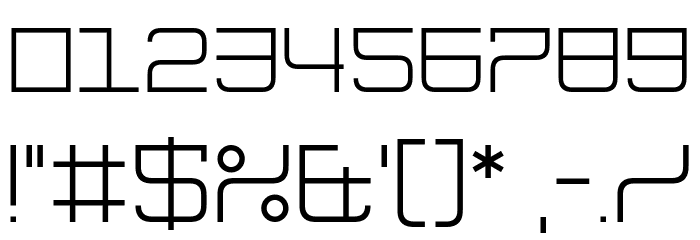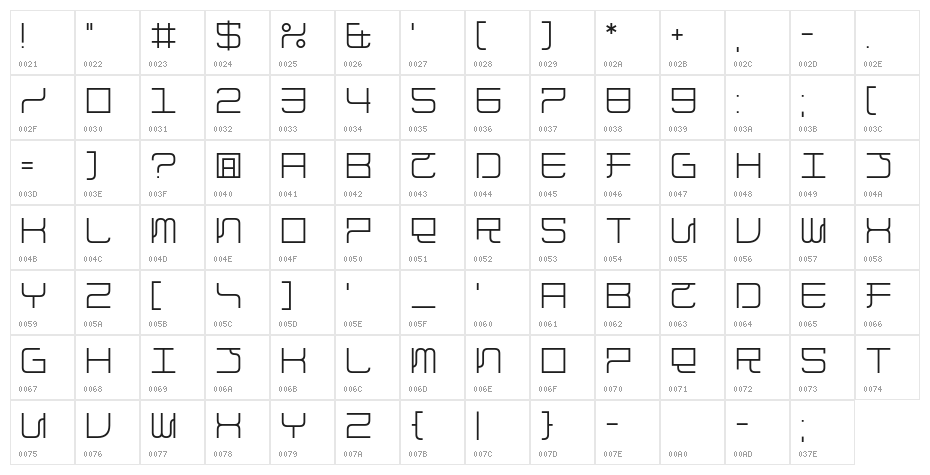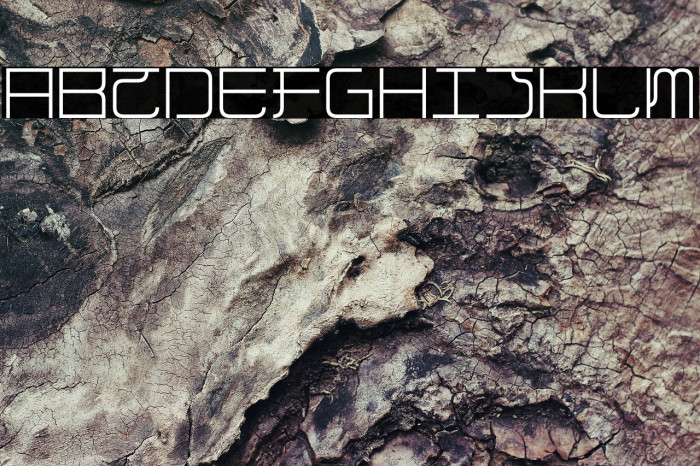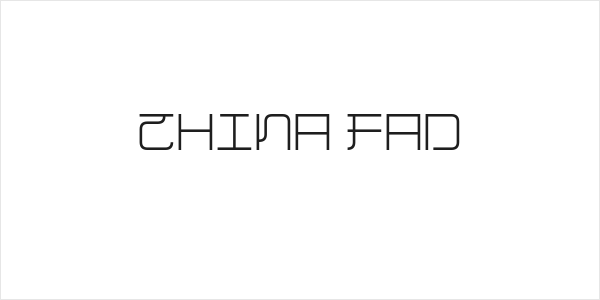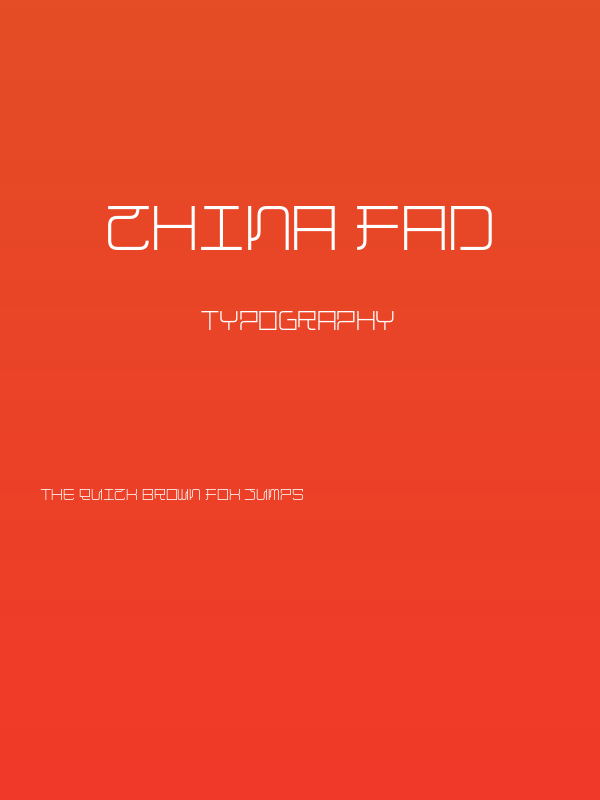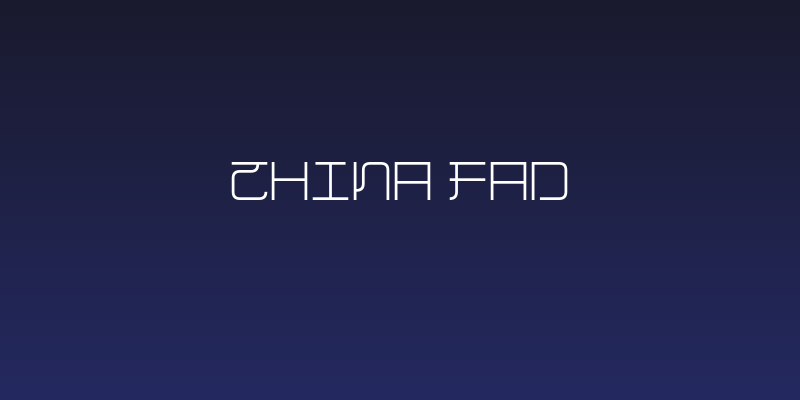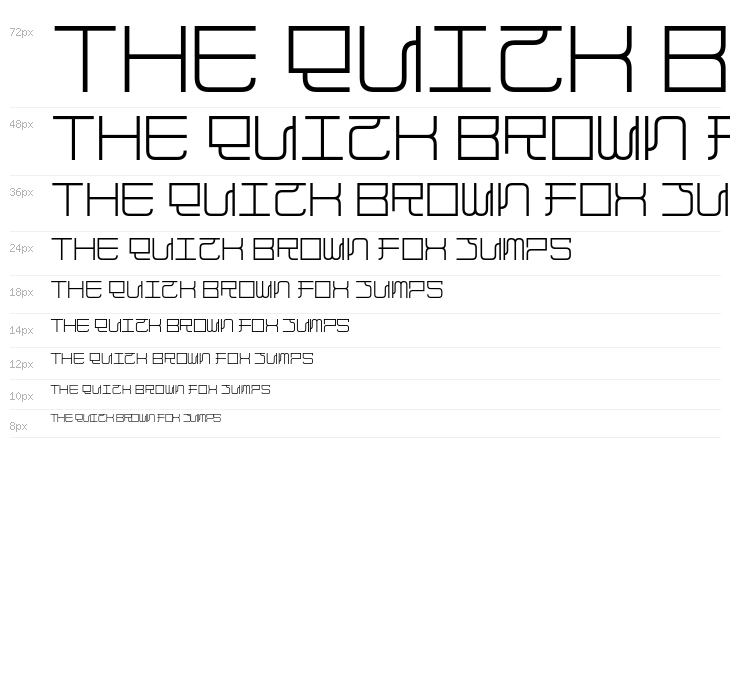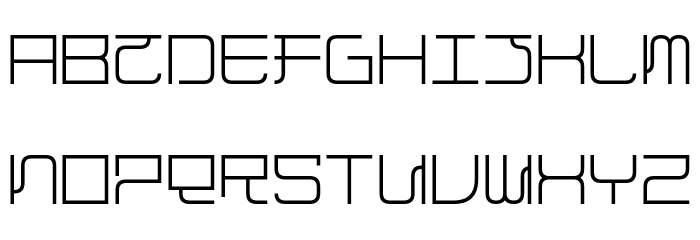
China Fad Font
China Fad Description
This font features a modern, geometric design with a distinct futuristic aesthetic. The characters are composed of clean, straight lines and rounded corners, giving them a sleek and minimalistic appearance. The uppercase and lowercase letters maintain a consistent height, creating a uniform look across the typeface. The numerals and special characters follow the same design principles, ensuring a cohesive style throughout. The font's unique structure makes it stand out, with an emphasis on symmetry and balance. Its thin strokes and open forms contribute to a sense of elegance and sophistication, making it suitable for contemporary design projects.
| Overall Style | Futuristic, Minimalistic |
| Use Case | Logos, Headlines, Digital Interfaces |
| Proposed Projects | Ideal for technology branding, modern advertising, sci-fi themed projects, and digital interfaces. |